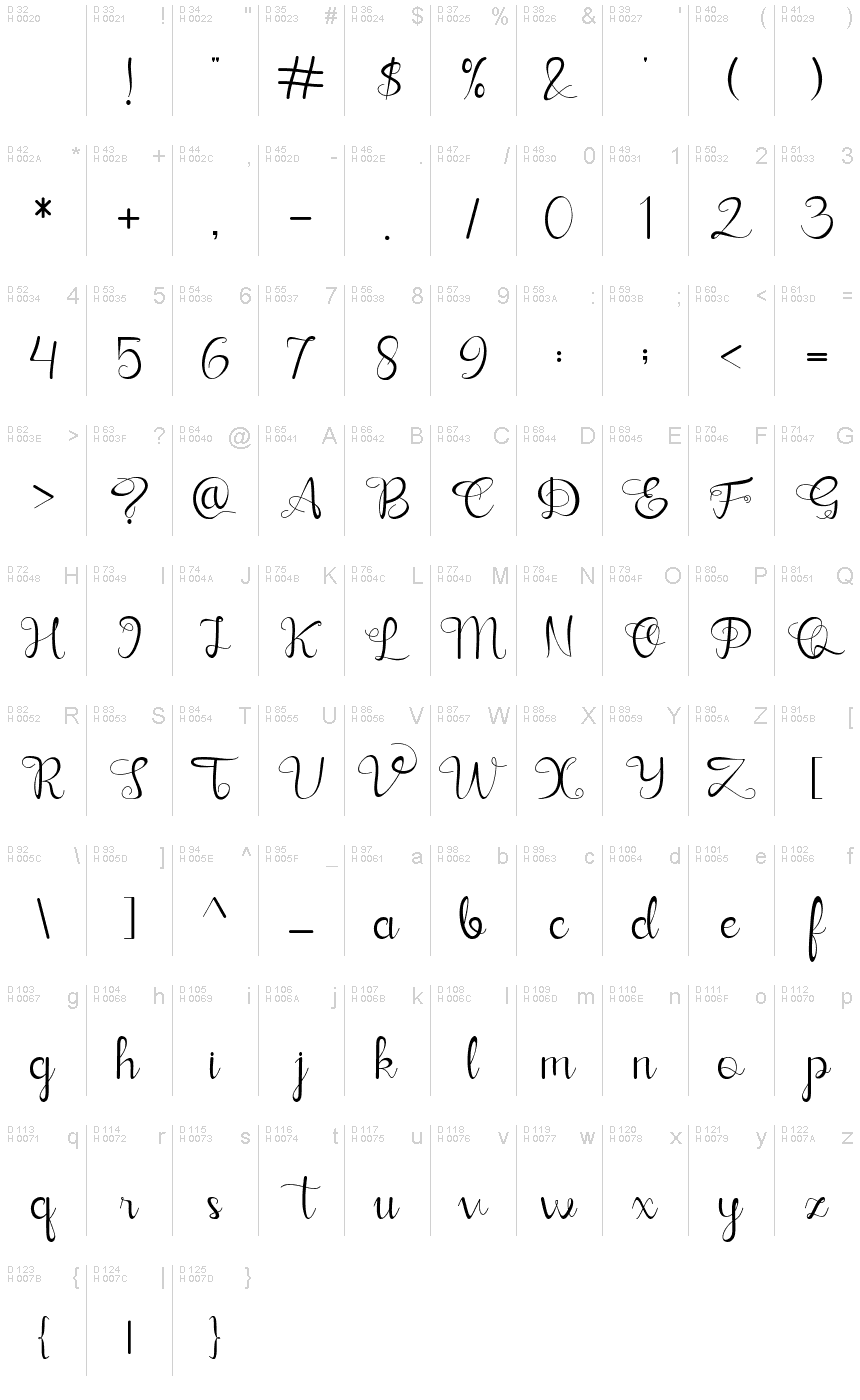
Verllina
Verllina by Get Studio is a modern calligraphy font that exudes elegance and sophistication. Its semi-light weight adds a touch of delicacy to any project, making it perfect for wedding invitations, event flyers, and feminine branding. With its fluid strokes and clean lines, Verllina is also suitable for use in digital designs such as social media graphics and website headers. Whether you're creating a romantic wedding program or a trendy fashion blog, Verllina's modern calligraphy style is sure to make your project stand out with its timeless beauty.